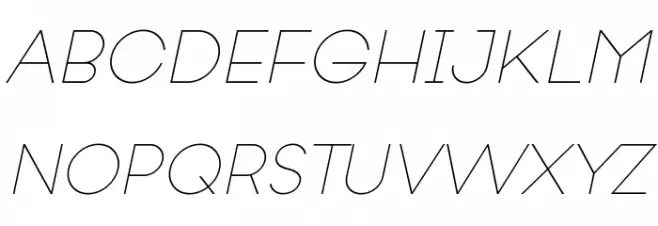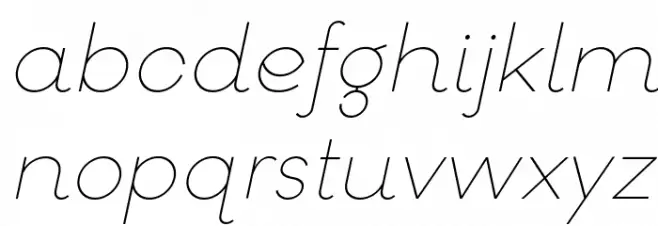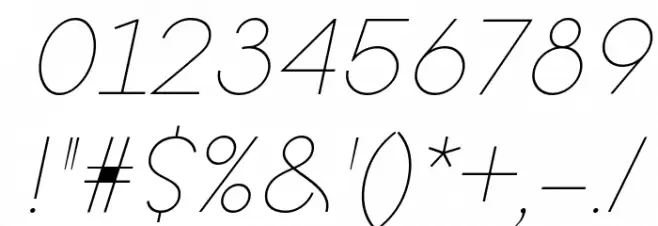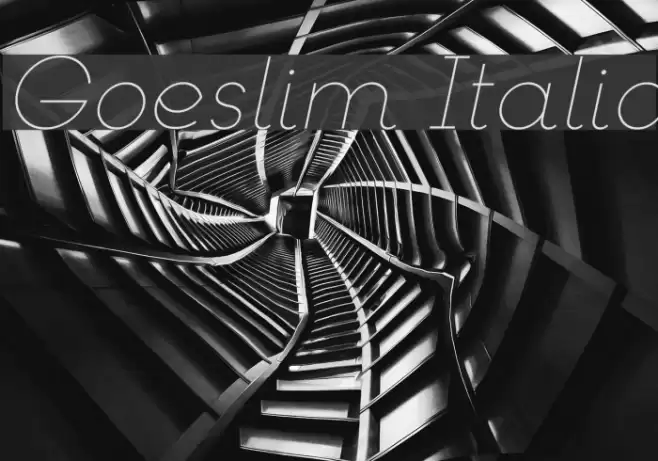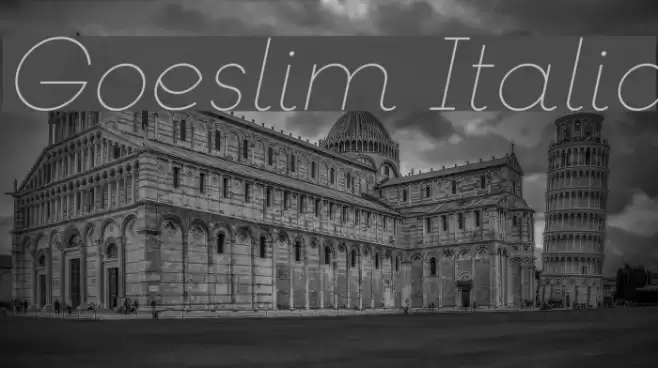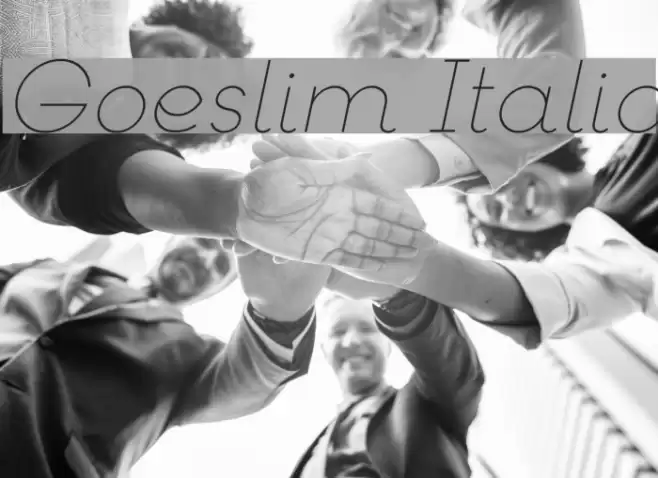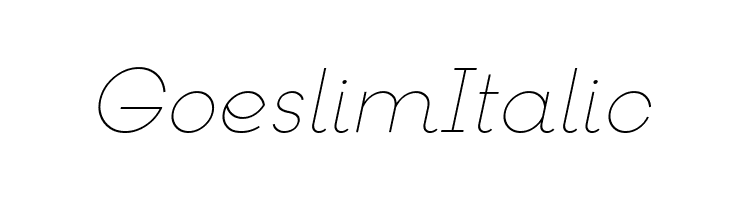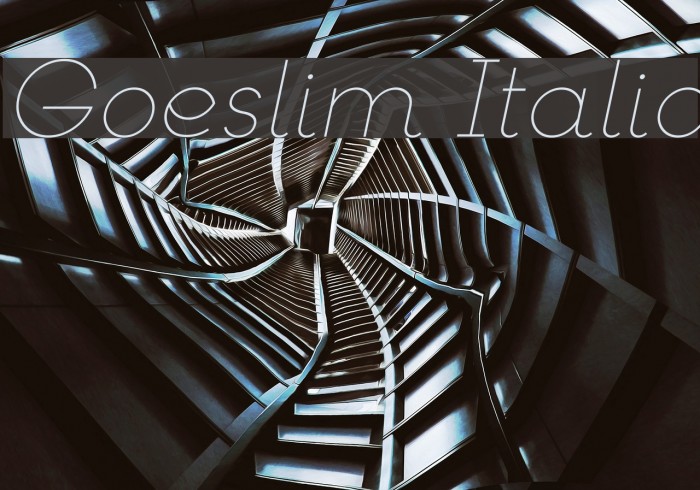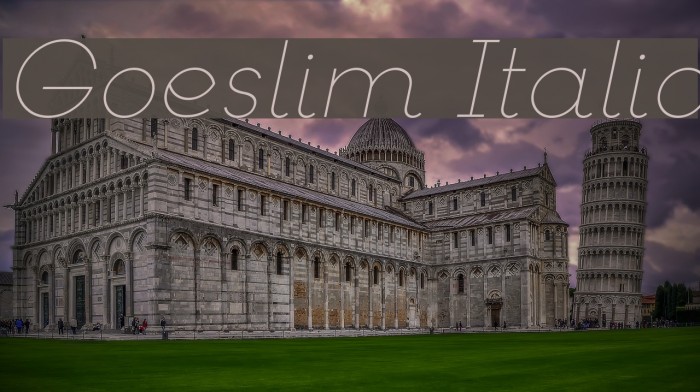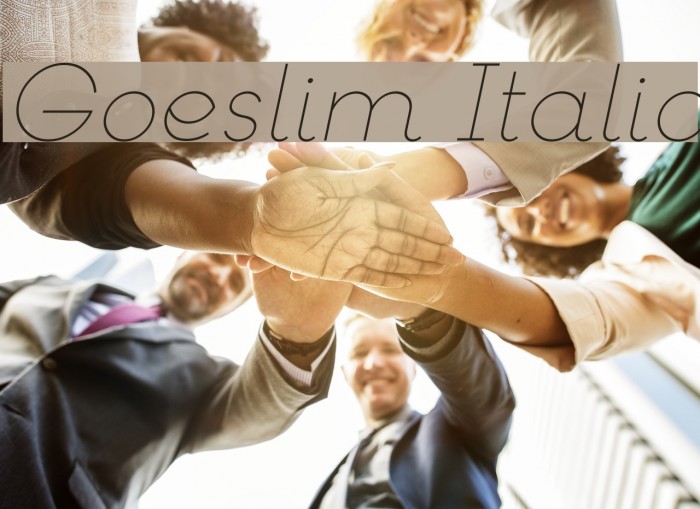
Goeslim Italic
This font features a sleek and modern design with a distinct italic slant, giving it a dynamic and elegant appearance. The characters are thin and elongated, contributing to a sophisticated and airy feel. The uppercase letters maintain a consistent height, while the lowercase letters have a gentle curve, adding to the font's fluidity. The numerals are clear and easy to read, matching the overall style of the alphabet. Special characters are well-integrated, maintaining the font's cohesive look. This font is ideal for projects that require a touch of elegance and modernity.
A sleek, modern italic font with thin, elongated characters.
- Proposed Projects: Ideal for fashion magazines, elegant branding, modern websites, and minimalist designs.
- Weight: Light
- Use Case: Headlines, Logos, Editorial design